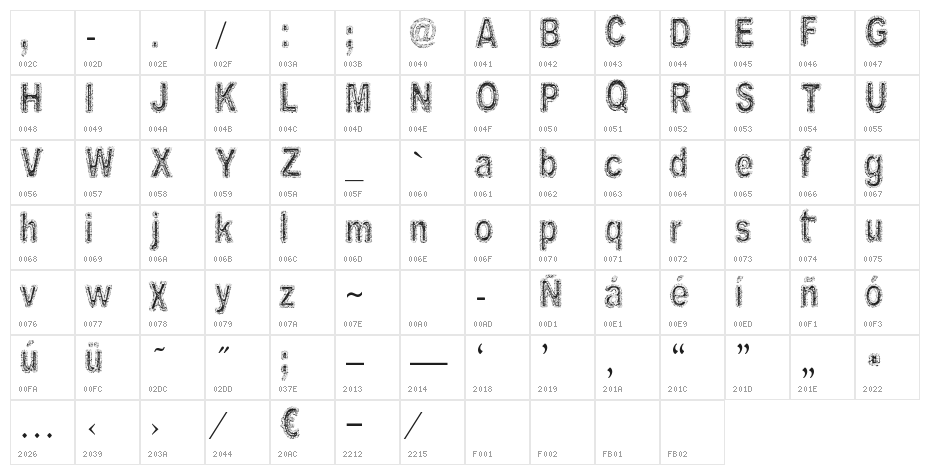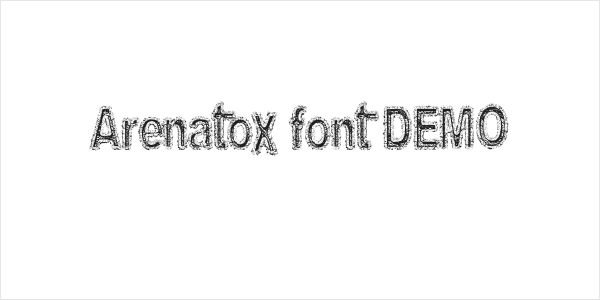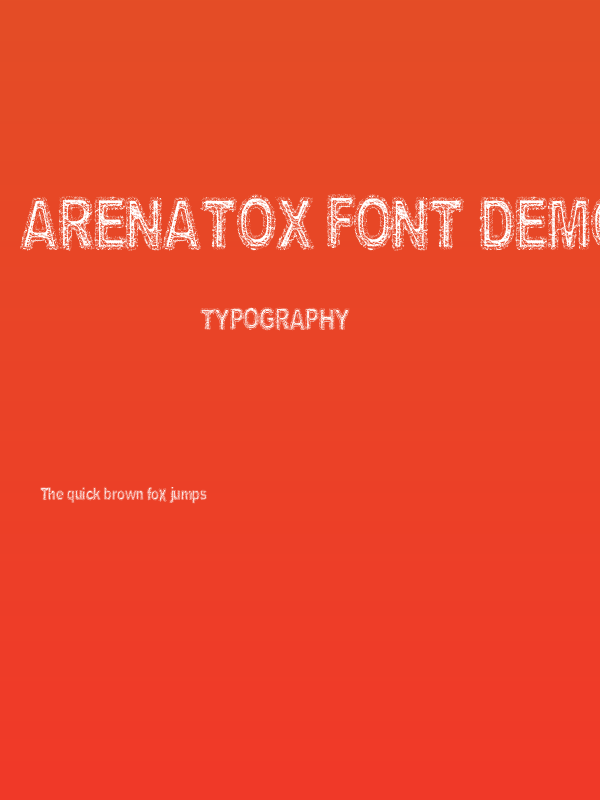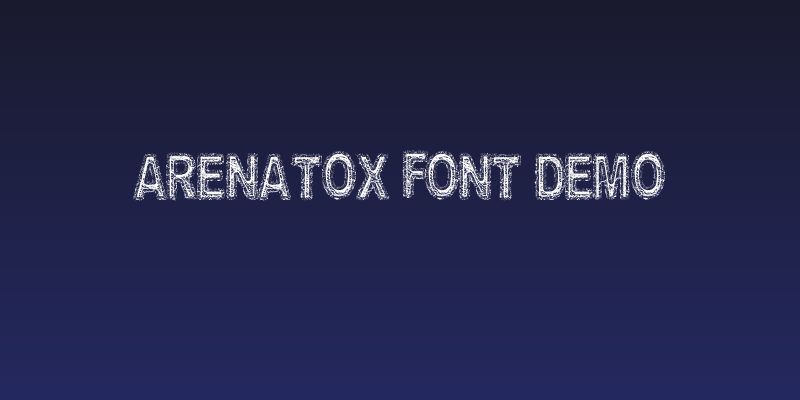
Arenatox font DEMO Font
Arenatox font DEMO Description
This font features a unique, distressed texture that gives it a rugged and edgy appearance. The characters are bold and have a rough, hand-drawn quality, with uneven edges that create a sense of movement and dynamism. The uppercase and lowercase letters maintain a consistent style, while the numbers and special characters complement the overall design. This font's distinctive look makes it ideal for projects that require a bold statement or an artistic touch.
| Proposed Projects | Perfect for album covers, posters, branding for edgy or alternative products, and creative digital artwork. |